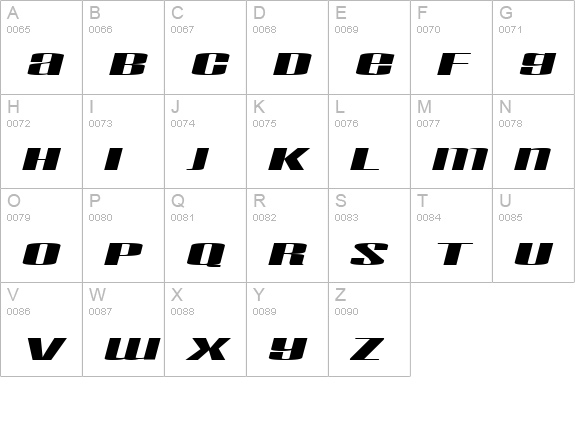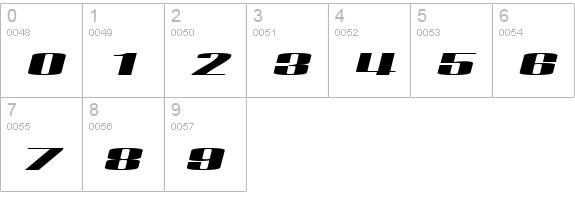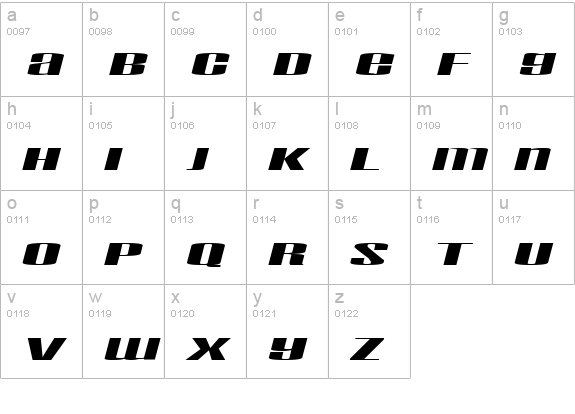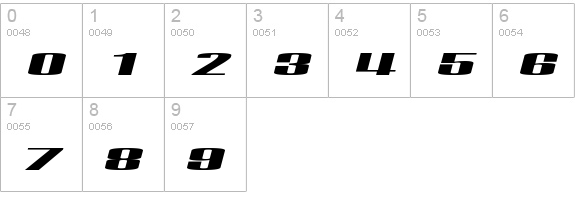
Taskeksem inflamerat Font Details
Taskeksem inflamerat font is a stunning display font that exudes a sense of fiery intensity and captivating energy. With its bold and dynamic letterforms, this font is guaranteed to make a powerful impact on any design project. The unique design of Taskeksem inflamerat font showcases a perfect balance between sharp edges and flowing curves, creating a visually striking aesthetic that is both modern and timeless. What sets Taskeksem inflamerat font apart is not only its visually appealing design, but also the fact that it is freely available to download at FontsMarket.com. This means that designers and creatives from all walks of life can access and utilize this extraordinary font without any limitations or financial constraints. Whether you are a professional graphic designer, a passionate hobbyist, or simply someone looking to add a touch of excitement to your personal projects, Taskeksem inflamerat font is the perfect choice. In addition to its striking appearance and accessibility, Taskeksem inflamerat font also offers exceptional versatility. Its bold and commanding presence is ideal for headlines, titles, and attention-grabbing text, while its legibility ensures readability even in smaller sizes. This font truly allows you to unleash your creativity and express your unique style in a way that will captivate your audience. With Taskeksem inflamerat font, you have the freedom to bring your designs to life and make a lasting impression. Its availability for free download at FontsMarket.com means that you can effortlessly incorporate this font into your projects, whether it be for print, digital, or any other medium. So why wait? Discover the power of Taskeksem inflamerat font and elevate your designs to new heights. Download it now and let your creativity soar.